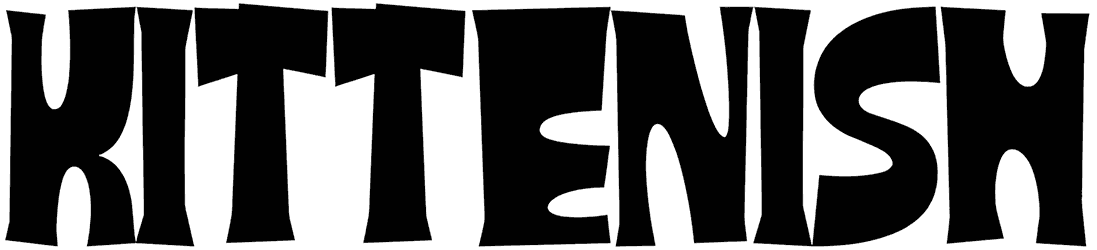
Snubnose Font
Snubnose font has a doodle style. To get the most out of this painting font, you can use it to design planer notebooks, storybooks, and scrapbook covers. This fancy font does not contain lowercase letters and uses large characters and numbers to insert dates and times to design flyers and motivational notes.
Also, this font is a great choice for designing desktop calendars and scheduling applications for those who are punctual.
Designed by: Bogstav